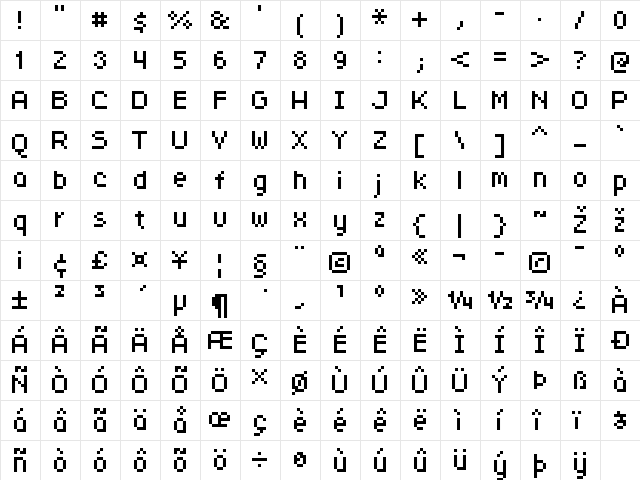
FFF Minitower Extended Regular
| Foundry | Fonts For Flash |
| Designer | Fonts For Flash |
Design Context for FFF Minitower Extended Typeface
FFF Minitower Extended is a composed and adaptable typeface that performs quietly and consistently across a wide range of design contexts.